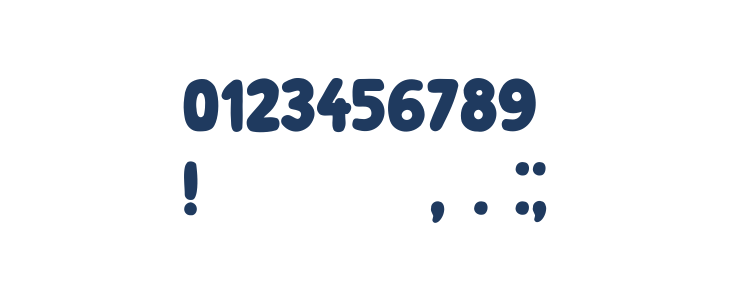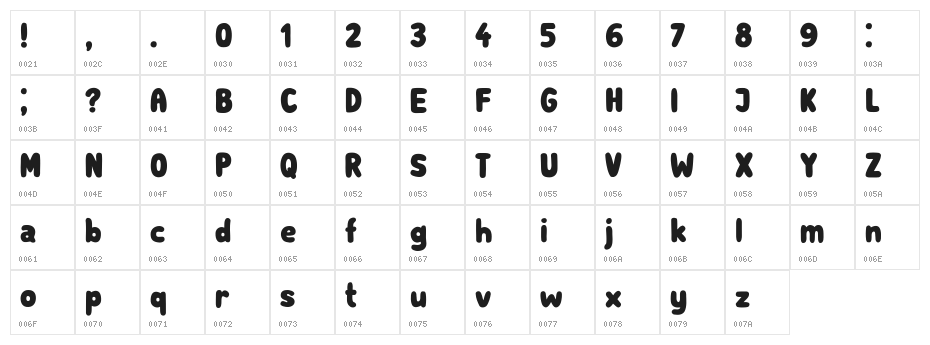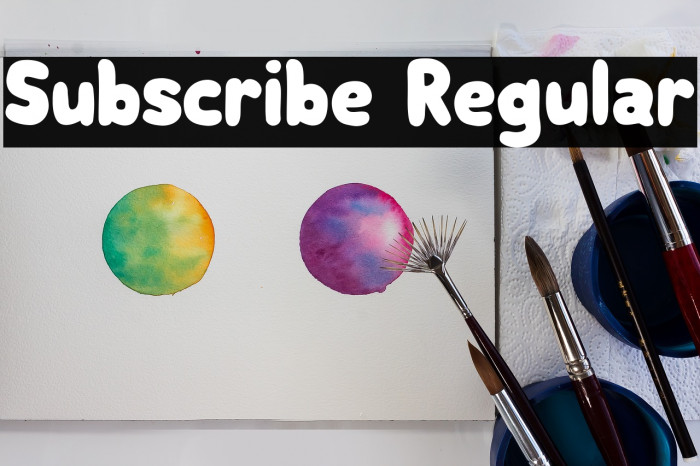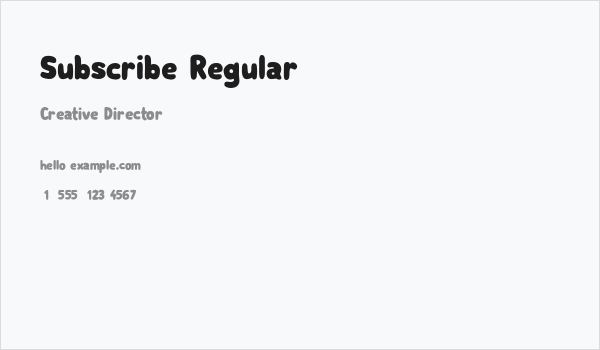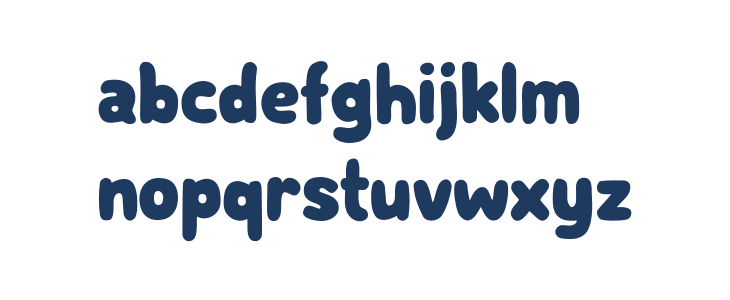
Subscribe Regular Font
Subscribe Regular Description
This font features a playful and bold design, characterized by its rounded and thick letterforms. The characters are uniformly bold, creating a sense of cohesion and strength. The rounded edges give it a friendly and approachable appearance, making it suitable for casual and informal contexts. The font maintains consistent thickness throughout, providing a uniform look that enhances readability. Its design is modern and slightly whimsical, appealing to a younger audience or those looking for a fun and engaging typeface.
| Proposed Projects | Ideal for children's books, playful branding, posters, and social media graphics. |